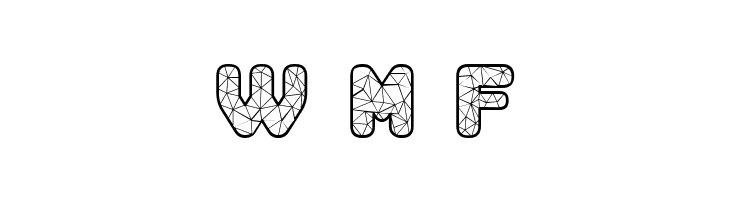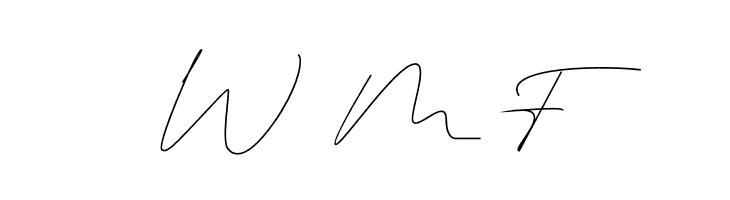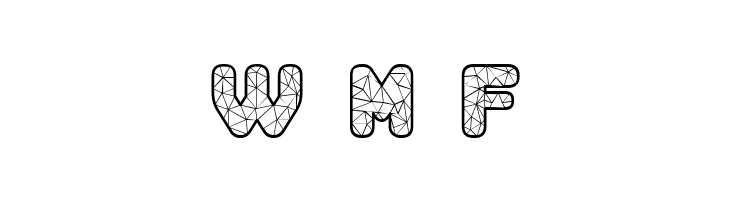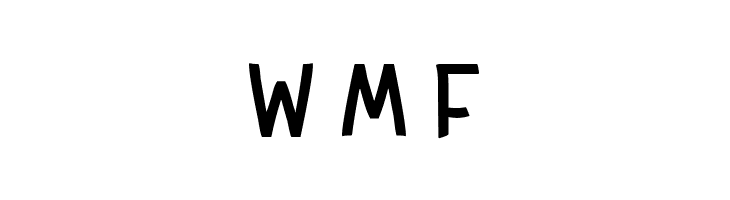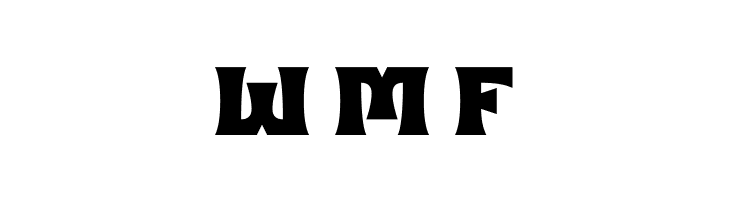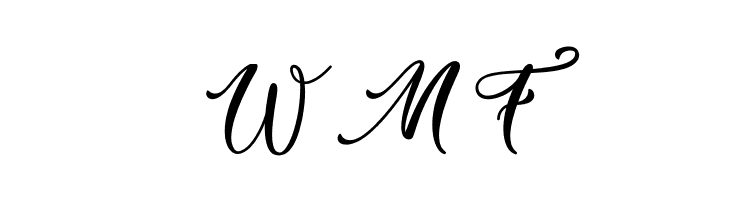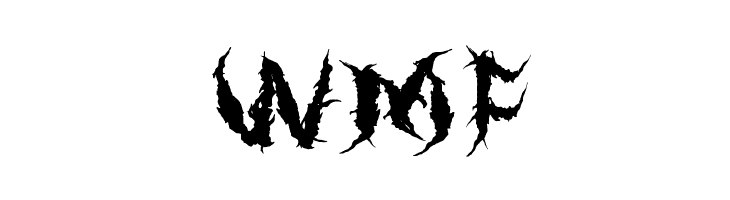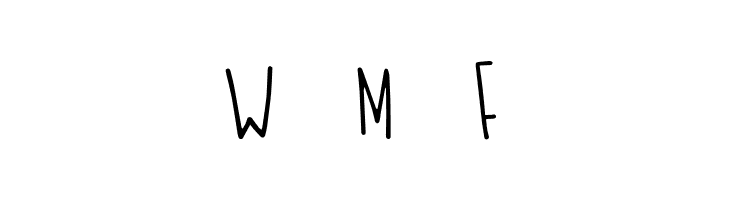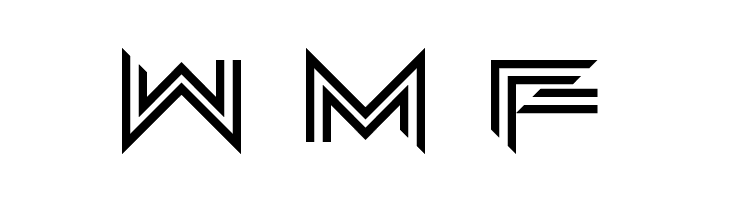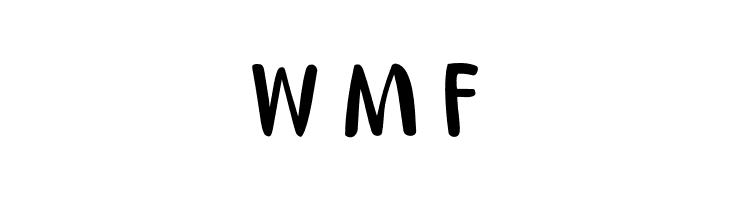
A playful, bold, hand-drawn font with a whimsical and informal style.
A bold, rounded font with uniform strokes and a modern, geometric style.
A bold, rounded, and italic font with a modern and friendly appearance.
A bold, rounded, and italic font with a modern, playful style.
A bold, rounded font with a modern and playful style.
A bold, geometric font with a mesh-like pattern and rounded edges.
A bold, geometric font with a mesh-like pattern inside each character.
A bold, geometric font with intricate line patterns and rounded shapes.
A geometric, wireframe-style font with bold outlines and intricate triangular patterns.
A playful, hand-drawn outline font with a whimsical and artistic style.
A rough, hand-drawn font with a vintage, organic feel.
A modern, playful outline font with bold uppercase letters.
A hand-drawn, rough-textured font with a casual, organic feel.
A flowing, elegant script font with bold, sweeping uppercase and smooth, slanted lowercase letters.
A graceful and flowing script font with a handwritten style.
A flowing, cursive font with elegant loops and swashes.
A graceful, flowing script font with elegant curves and loops.
A playful and elegant script font with flowing, cursive letters and a hand-drawn appearance.
A bold, playful handwritten font with smooth curves and rounded edges.
A playful, bold, handwritten font with a casual and dynamic style.
A bold, distressed stencil-style font with a vintage industrial feel.
A sophisticated, elegant handwritten script with flowing cursive strokes.
A casual, handwritten font with a relaxed and approachable style.
An elegant script font with flowing, interconnected letters and decorative swashes.
An elegant, flowing script font with a sophisticated cursive design.
A geometric, brick-like font with bold outlines and internal line details.